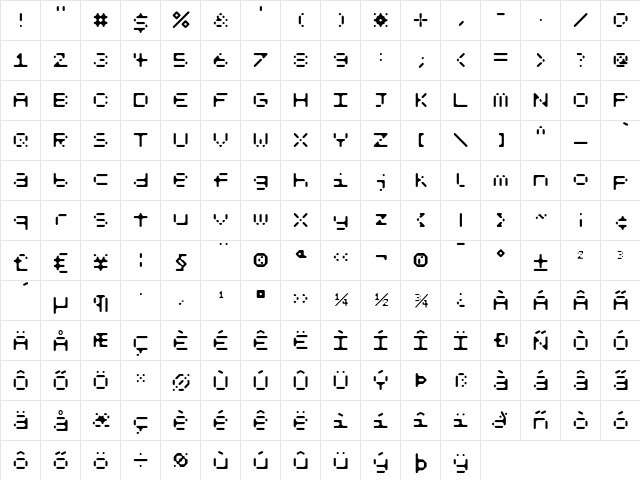
Koko Four
Design Context for Koko Typeface
Koko is a composed and adaptable typeface that performs quietly and consistently across a wide range of design contexts.